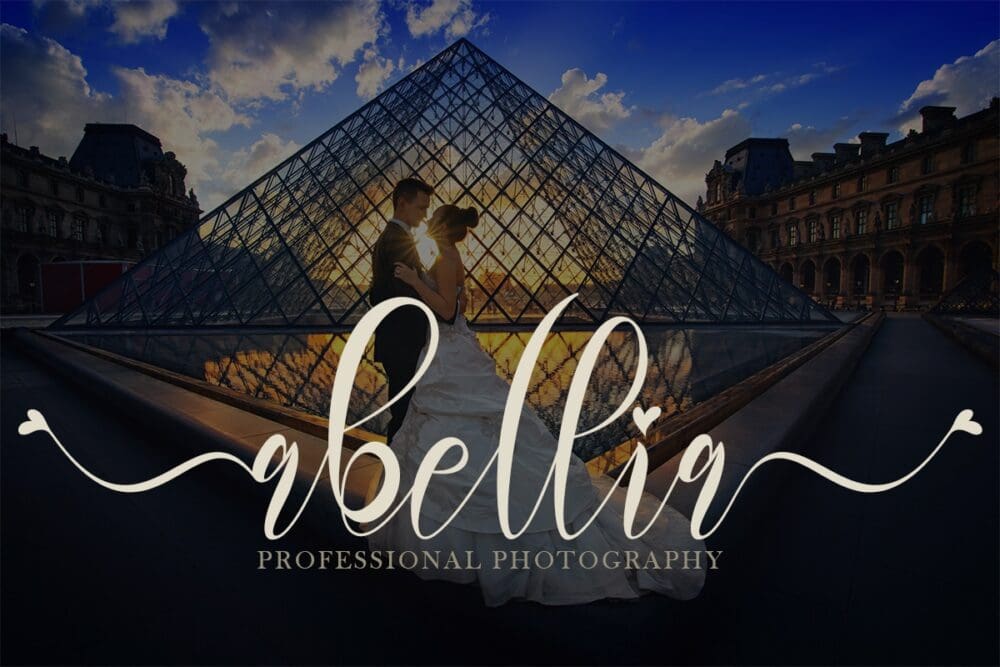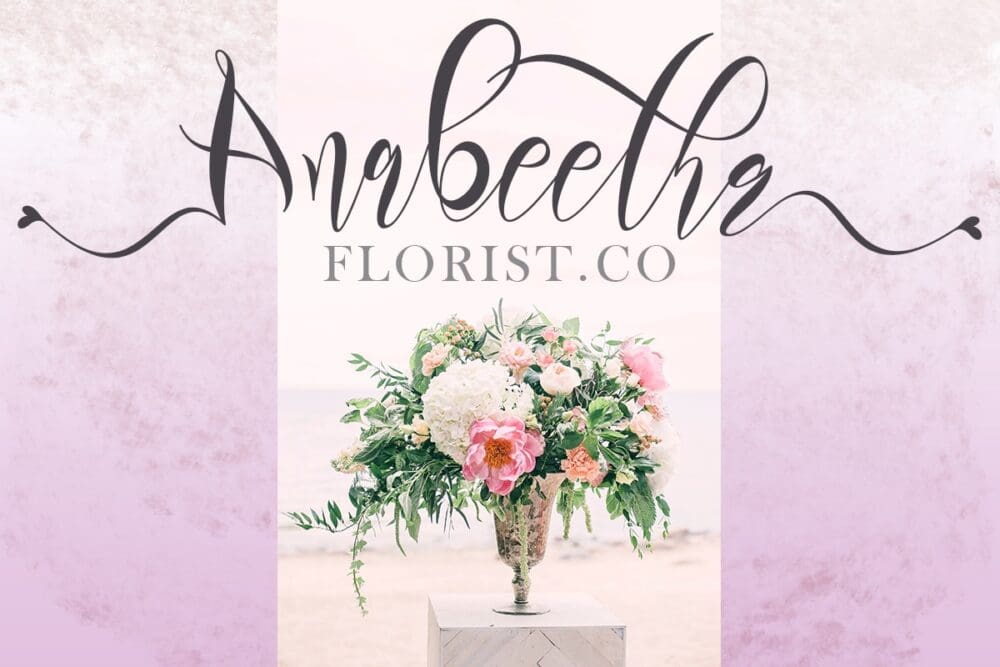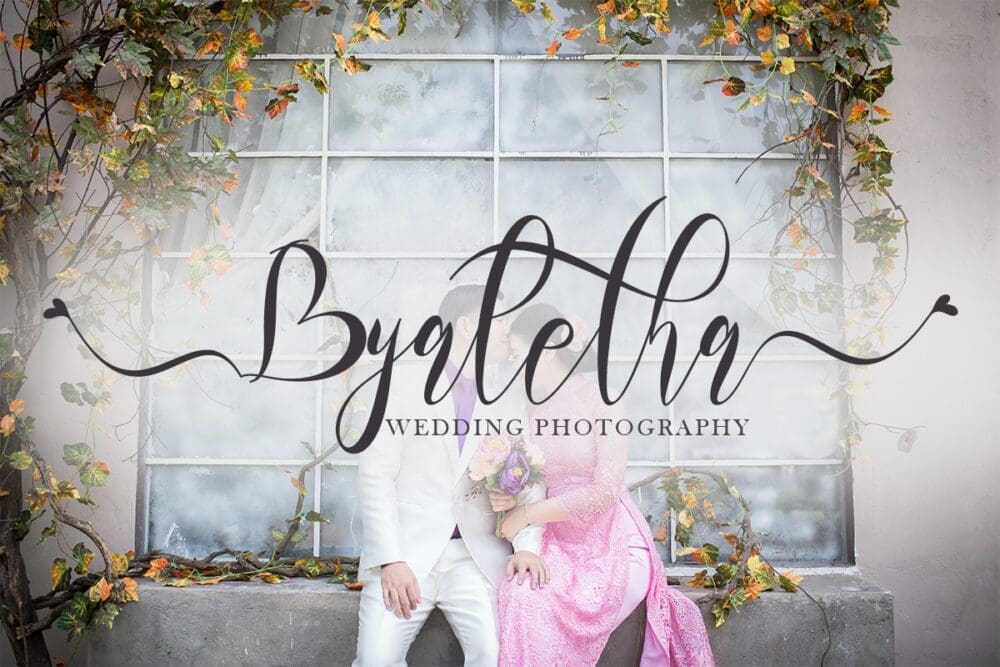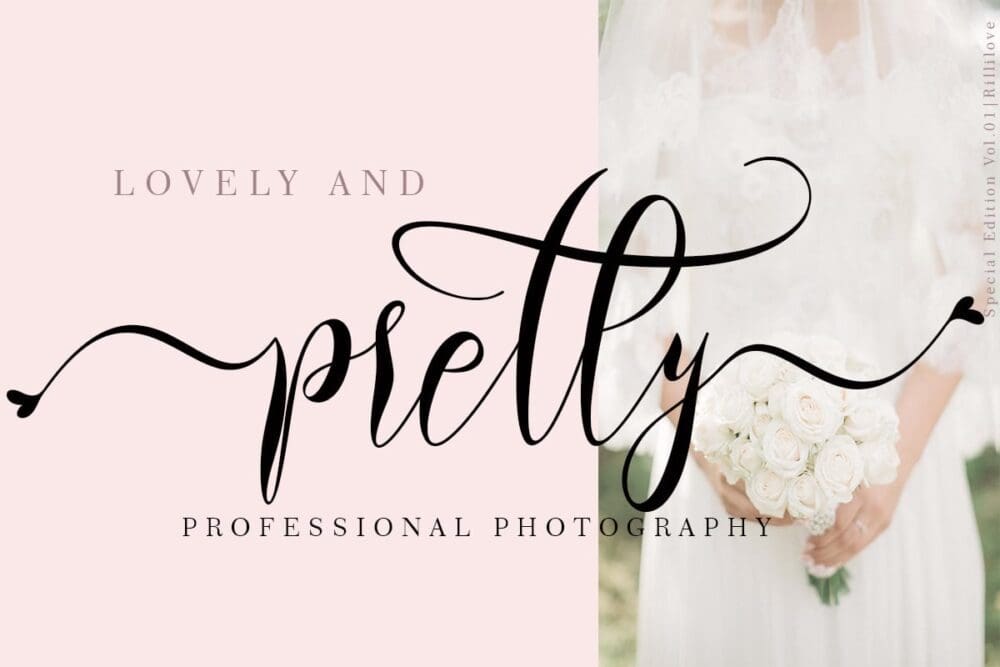
Rillilove Font
Rillilove is a romantic and lovely handwritten font, perfectly envisioned for your most favorite design idea. This font is PUA encoded which means you can access all of the glyphs and swashes with ease! Fall in love with its incredibly versatile style and use it to create spectacular designs!